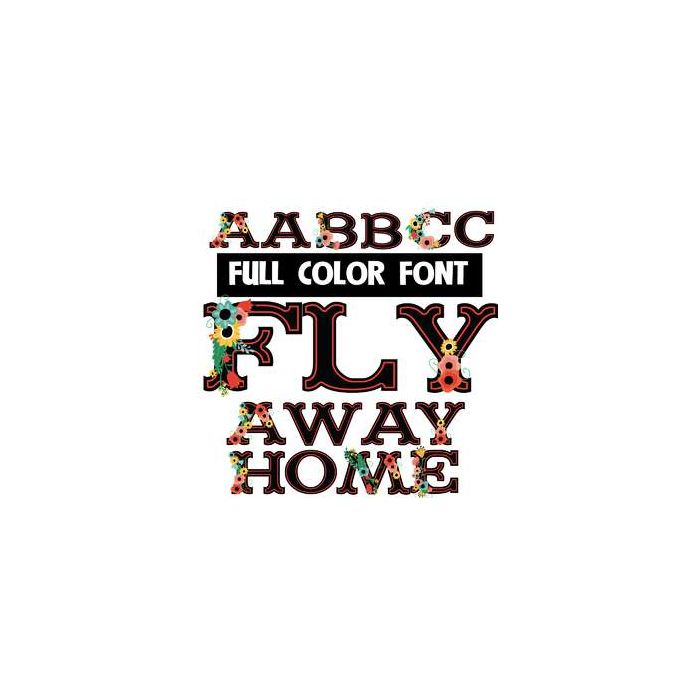
This full-color font features an uppercase with beautiful flowers and the lowercase is without. Mix up both cases as you type for best results. This font works best for titles, displays, posters and more. Please note color fonts will show as black in non compatible programs. This font type is compatible with Silhouette Studio.